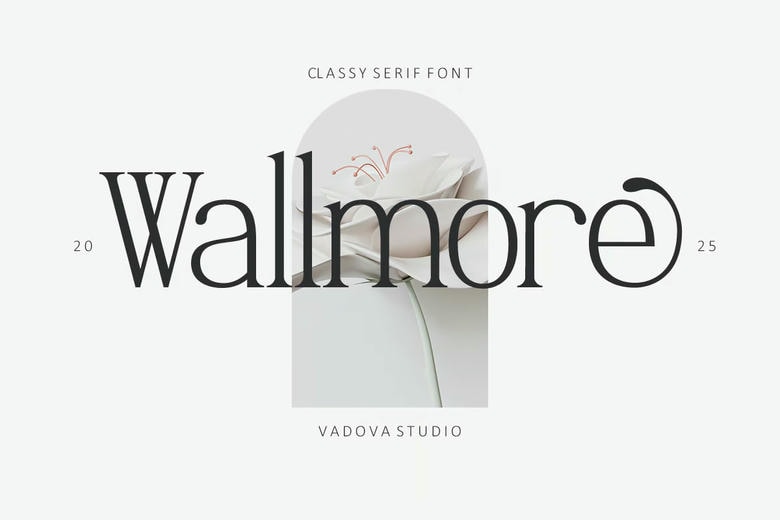
Wallmore Font
Wallmore is a modern serif font perfect for adding elegance and style to your projects. Whether it’s for quotes, logotypes, magazine headers, or more, this versatile typeface ensures your text stands out beautifully.
Wallmore Serif Font